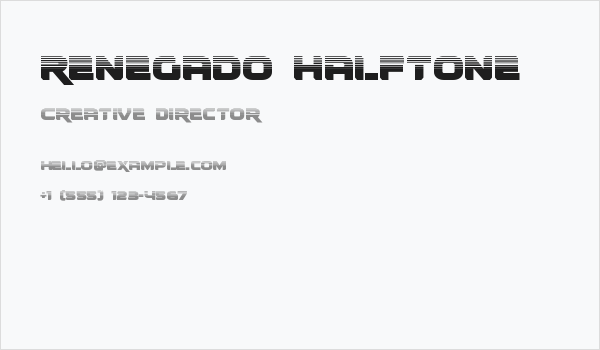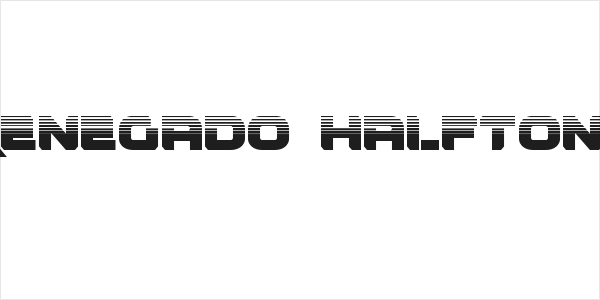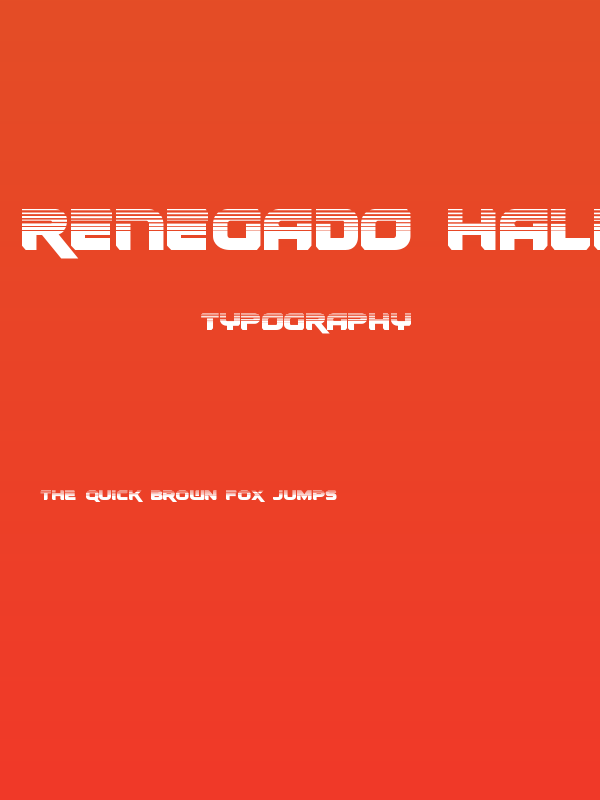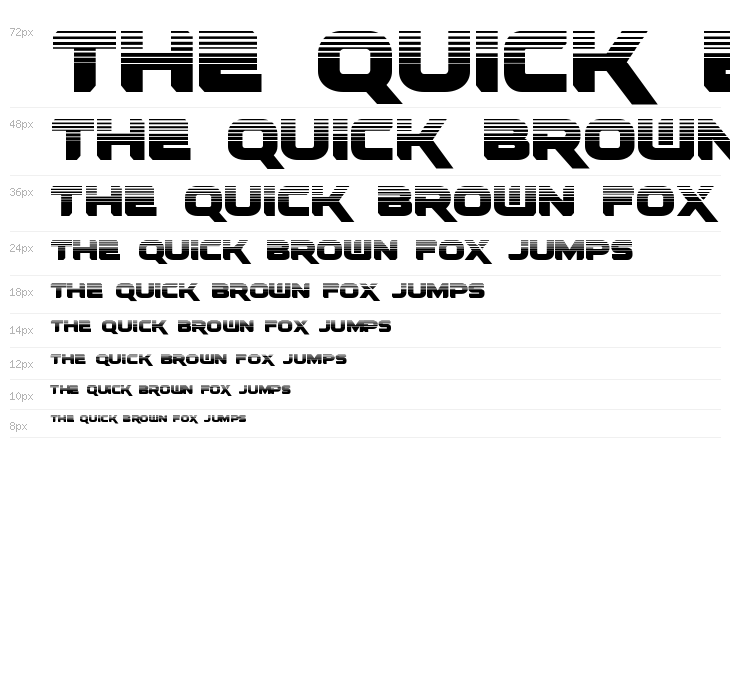
Renegado Halftone Font
Renegado Halftone Description
This font features a bold, futuristic design with a halftone effect that creates a sense of motion and depth. The uppercase letters are characterized by strong, angular lines and a unique striped pattern that adds a dynamic visual interest. The numbers and special characters follow the same stylistic approach, ensuring consistency across all glyphs. This font is particularly striking due to its high contrast between the thick, solid sections and the lighter, striped areas, making it ideal for attention-grabbing designs. The overall style is modern and edgy, suitable for projects that aim to convey a sense of innovation and forward-thinking.
| Proposed Projects | Ideal for sci-fi themed posters, video game titles, tech company logos, and futuristic branding materials. |